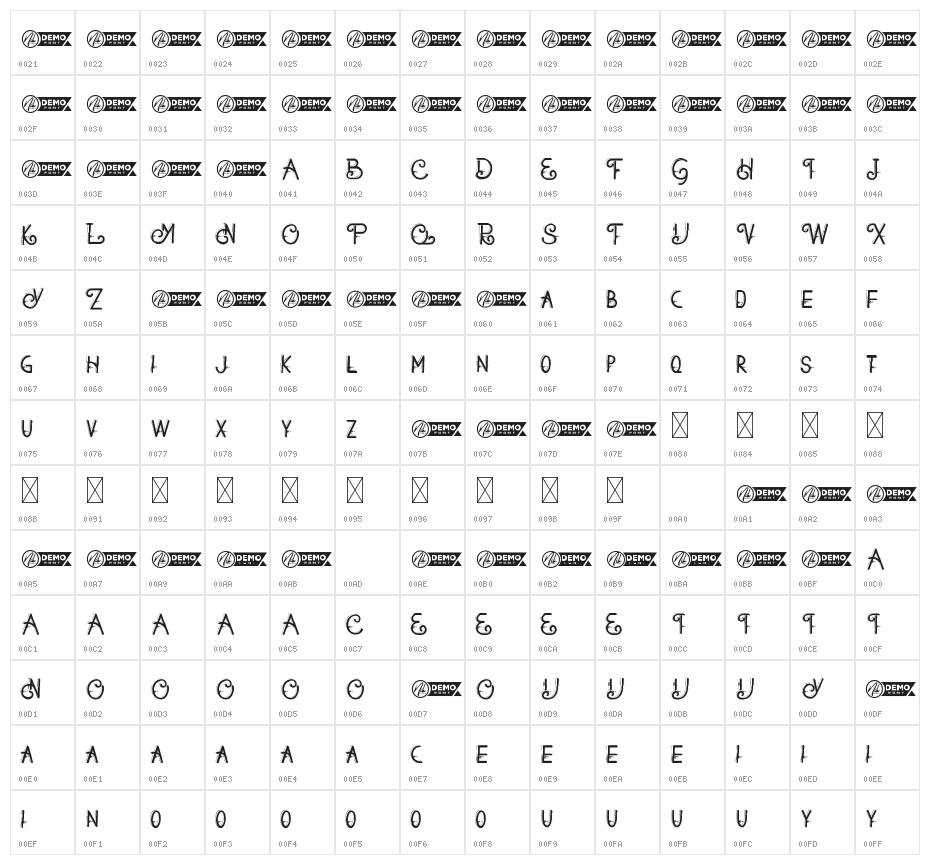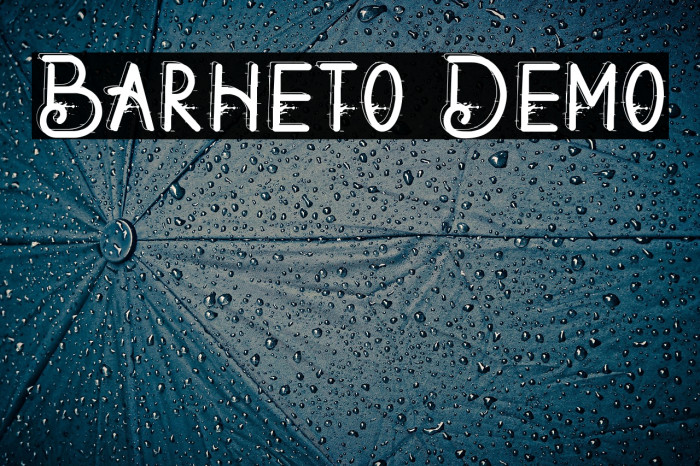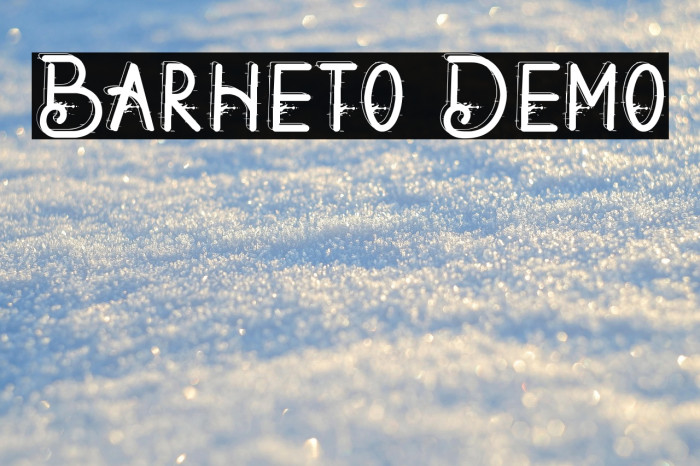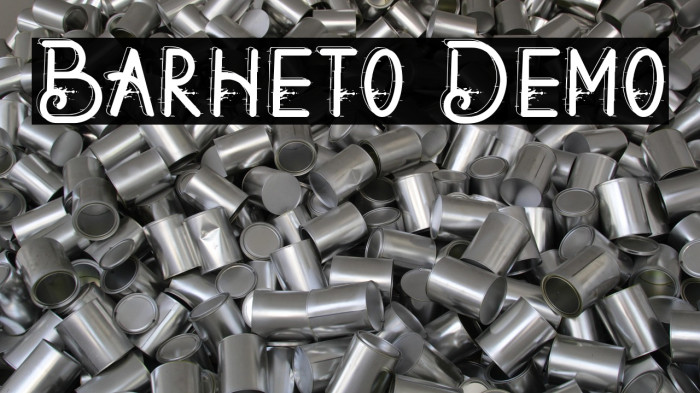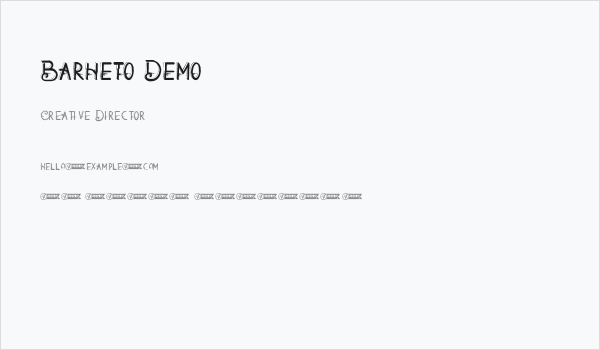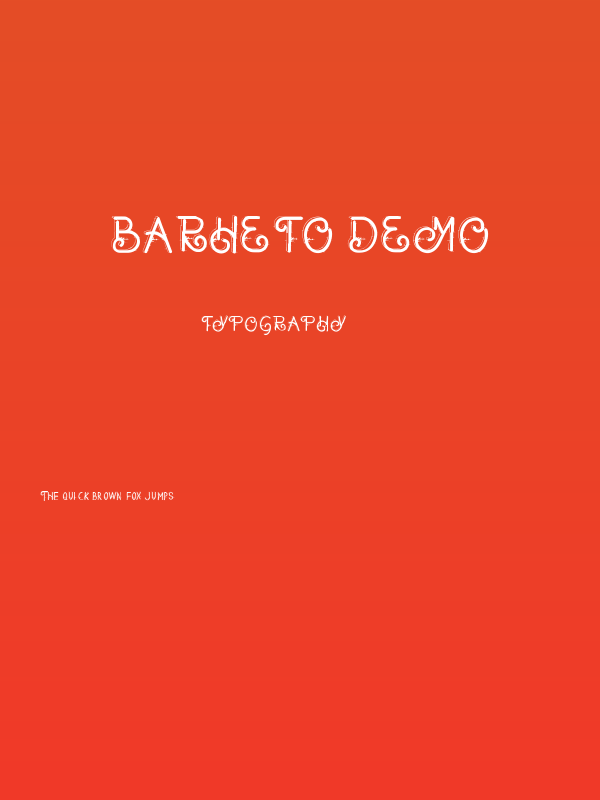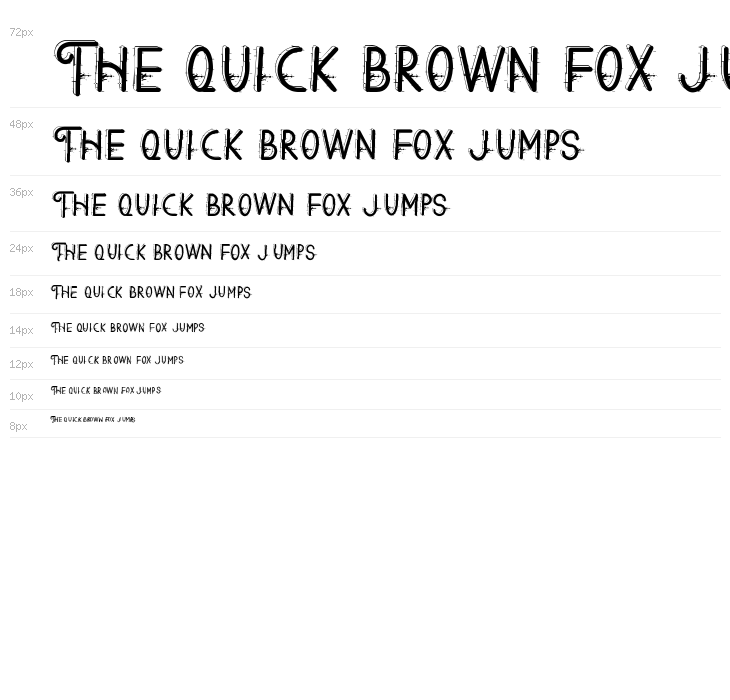
Barheto Demo Font
Barheto Demo Description
This font features a bold and decorative style with a distressed, grunge-like appearance. The uppercase letters are characterized by unique, swirling elements that give each character a distinct personality. The lowercase letters maintain this decorative flair, ensuring consistency across the typeface. The numbers and special characters are equally stylized, making them suitable for eye-catching designs. The font's overall aesthetic is both modern and edgy, perfect for projects that require a strong visual impact.
| Overall Style | Modern, Edgy |
| Proposed Projects | Ideal for posters, album covers, branding materials, and any design that requires a bold, artistic touch. |